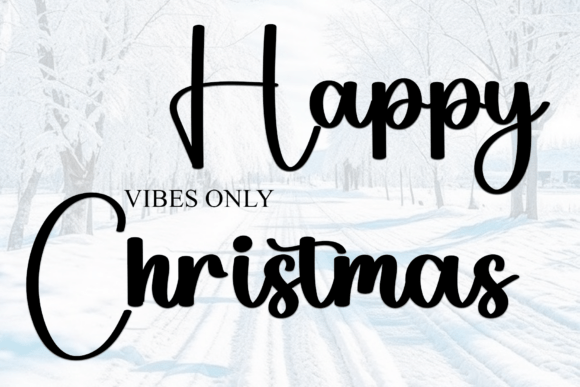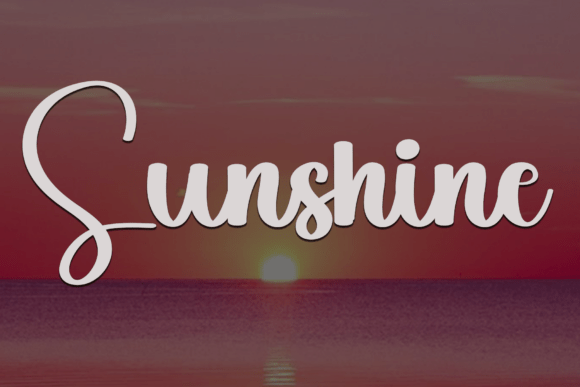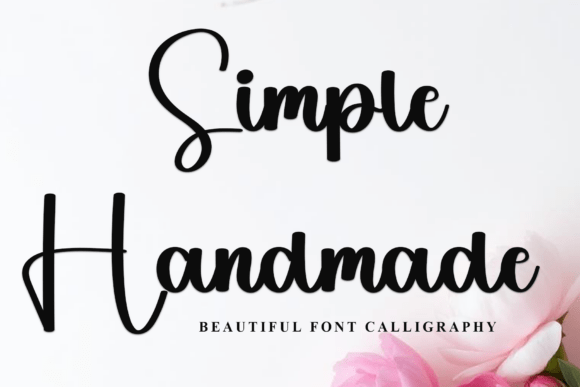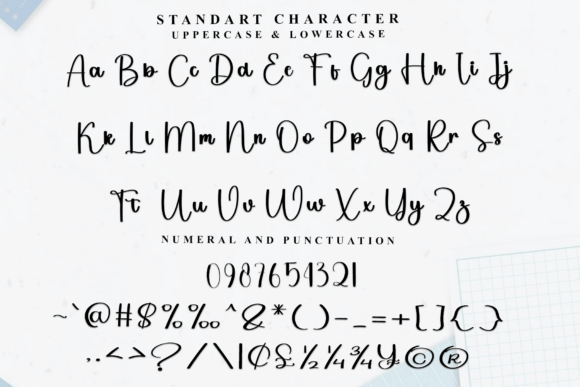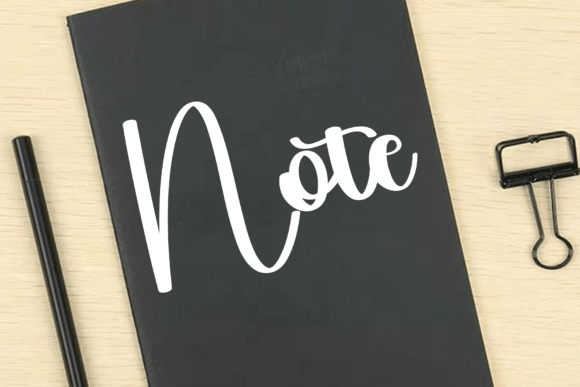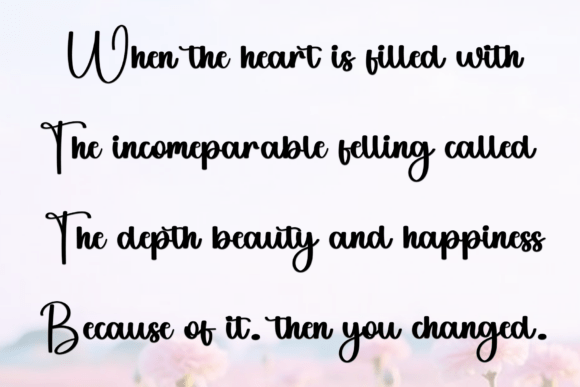
Daisy Font: Elevate Your Designs with a Touch of Elegance
In the world of typography, fonts play a crucial role in conveying messages, expressing emotions, and creating lasting impressions. Among the numerous fonts available, the Daisy Font stands out for its unique blend of softness and distinctiveness. Designed with a special touch, this beautiful font is perfect for designers, crafters, and creative professionals looking to add a touch of elegance to their projects.
The Unique Charm of Daisy Font
Daisy Font is characterized by its soft, flowing strokes that give it a distinctive and eye-catching appearance. The font’s unique design makes it stand out from more traditional fonts, offering a fresh and modern look that can be used in a variety of creative projects. Whether you’re working on a design project, crafting a handmade card, or developing a brand identity, Daisy Font’s special character is sure to make your work more engaging and memorable.
One of the key advantages of Daisy Font is its versatility. The font comes with a range of characters, making it suitable for a wide array of applications. From artistic and creative projects to more commercial uses, Daisy Font can be easily integrated into various designs, ensuring that your work looks cohesive and professional. Its adaptability makes it an excellent choice for designers who need a reliable font that can keep up with their creative demands.
For designers and crafters, finding the right font can often be a challenge. Daisy Font, with its beautiful and unique design, is an excellent solution. The font’s aesthetic appeal makes it perfect for use in:
- Logo designs: Create memorable and impactful logos that capture the essence of your brand.
- Stationery: Add a touch of elegance to your letters, cards, and invitations.
- Digital graphics: Enhance your social media posts, blog headers, and website content with a distinctive font.
- Crafts: Use Daisy Font in your handmade projects, such as scrapbooking, DIY cards, and other craftworks.
Enhance Your Designs with Daisy Font
The natural and elegant style of Daisy Font makes it an excellent choice for designers and crafters who want to create visually appealing designs. By incorporating this font into your projects, you can:
- Attract a wider audience: With its unique and eye-catching design, Daisy Font can help you reach and engage with a broader audience.
- Stand out in a crowded market: In a world where visual content is king, using a distinctive font like Daisy can help your designs stand out.
- Convey your message effectively: The soft and elegant strokes of Daisy Font make it perfect for conveying messages with a touch of sophistication.
Daisy Font is more than just a font – it’s a creative tool that can elevate your designs and add a touch of elegance to your projects. With its unique design, versatility, and compatibility, it’s an excellent choice for designers, crafters, and creative professionals. Whether you’re working on a design project, crafting a handmade card, or developing a brand identity, Daisy Font is sure to make your work more engaging, memorable, and visually appealing.